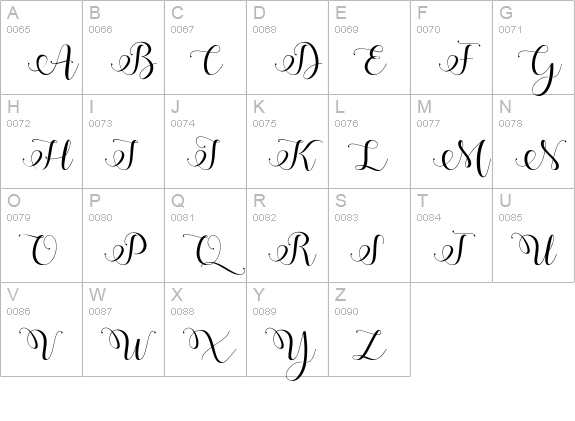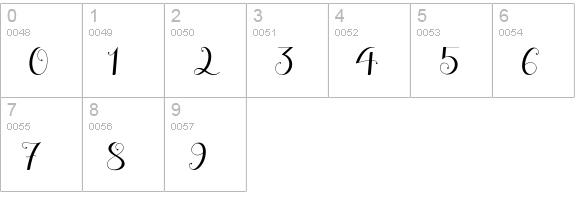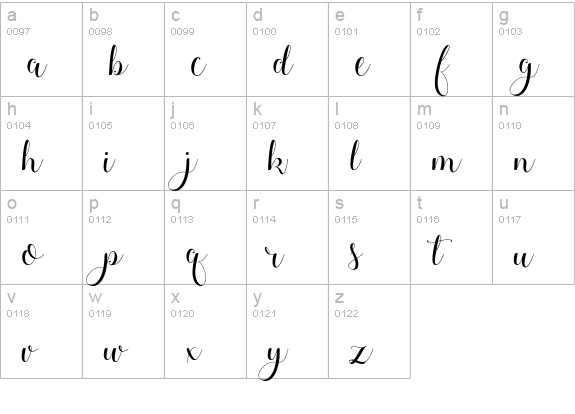
Adyana Font Details
Introducing Adyana font, a modern and stylish typeface that exudes elegance and sophistication. With its sleek lines and graceful curves, Adyana is perfect for adding a touch of class to any design project. Whether you're creating a logo, poster, or website, this versatile font will make your text stand out and leave a lasting impression.